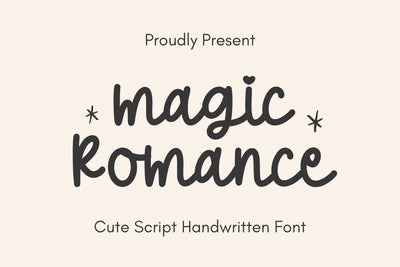
Magic Romance - Cute Handwritten Font
Magic Romance is a beautiful script handwritten font. This font is perfect for Cricut projects, canvas, laser, shirts, stickers, quotes, logos, teachers, scrapbooks, apparel, and more! Thank You!